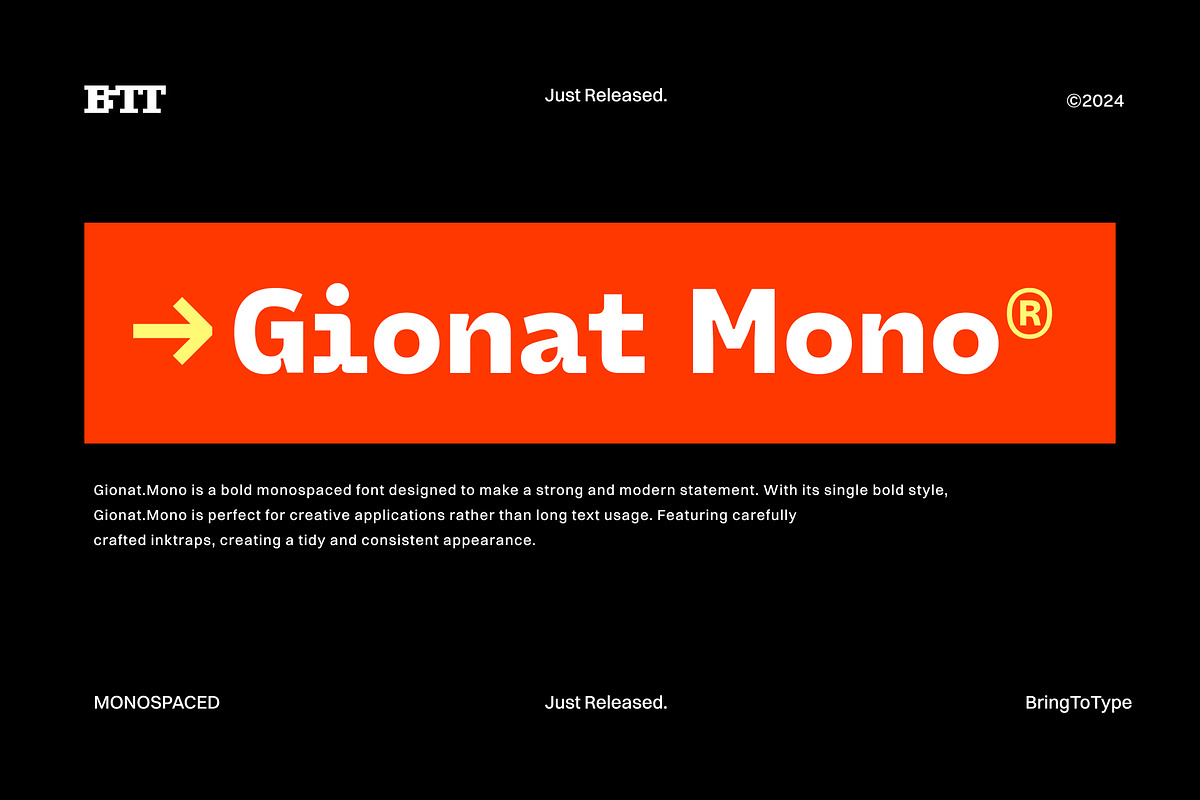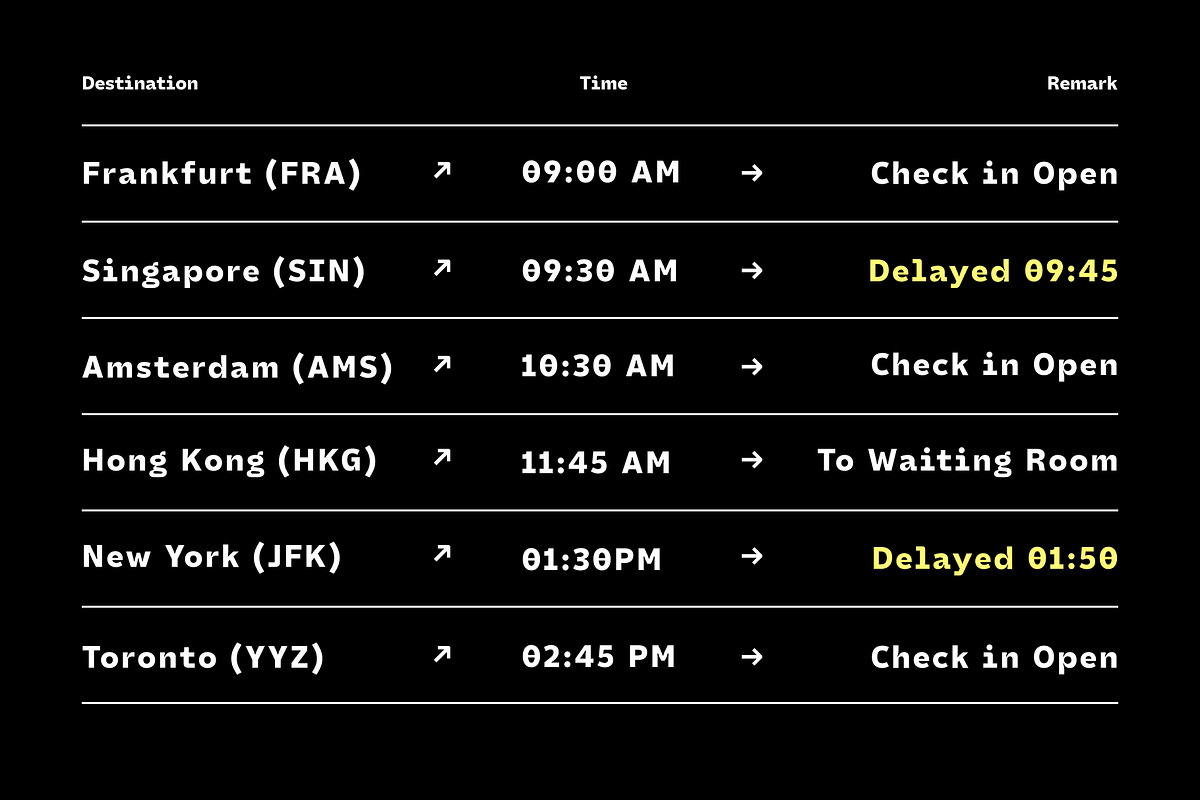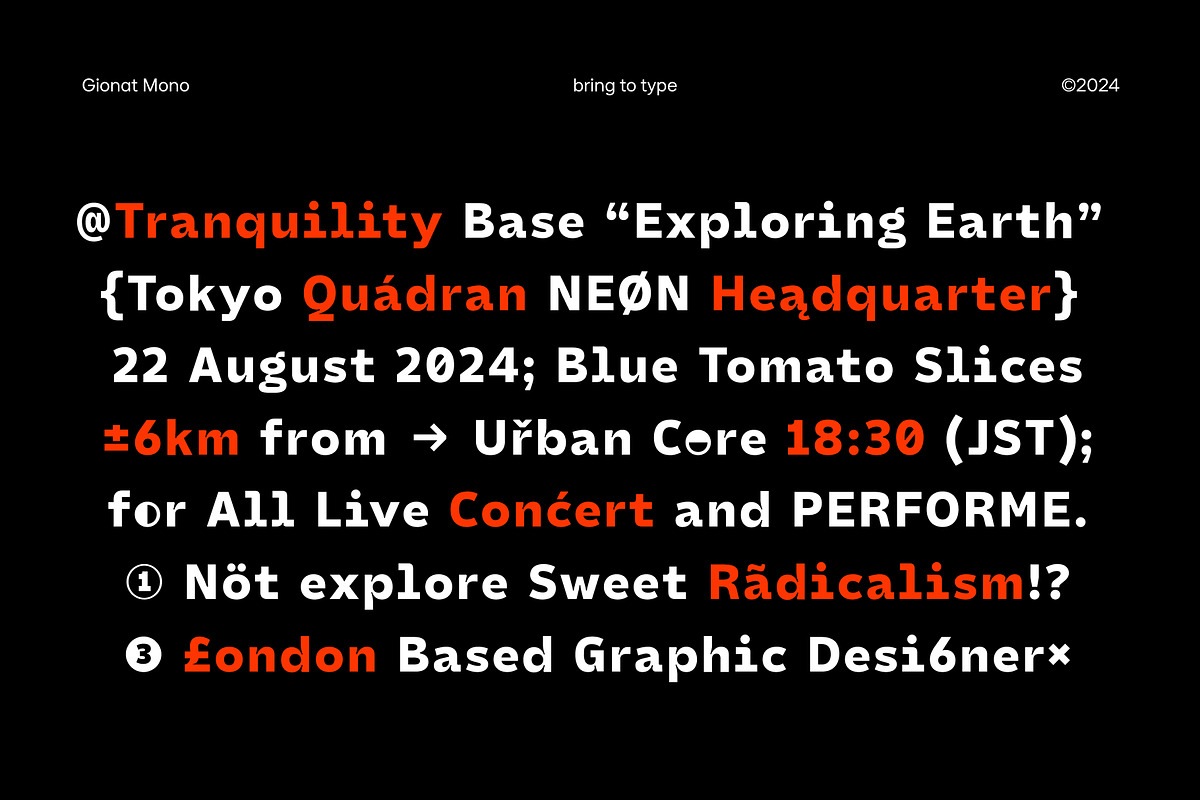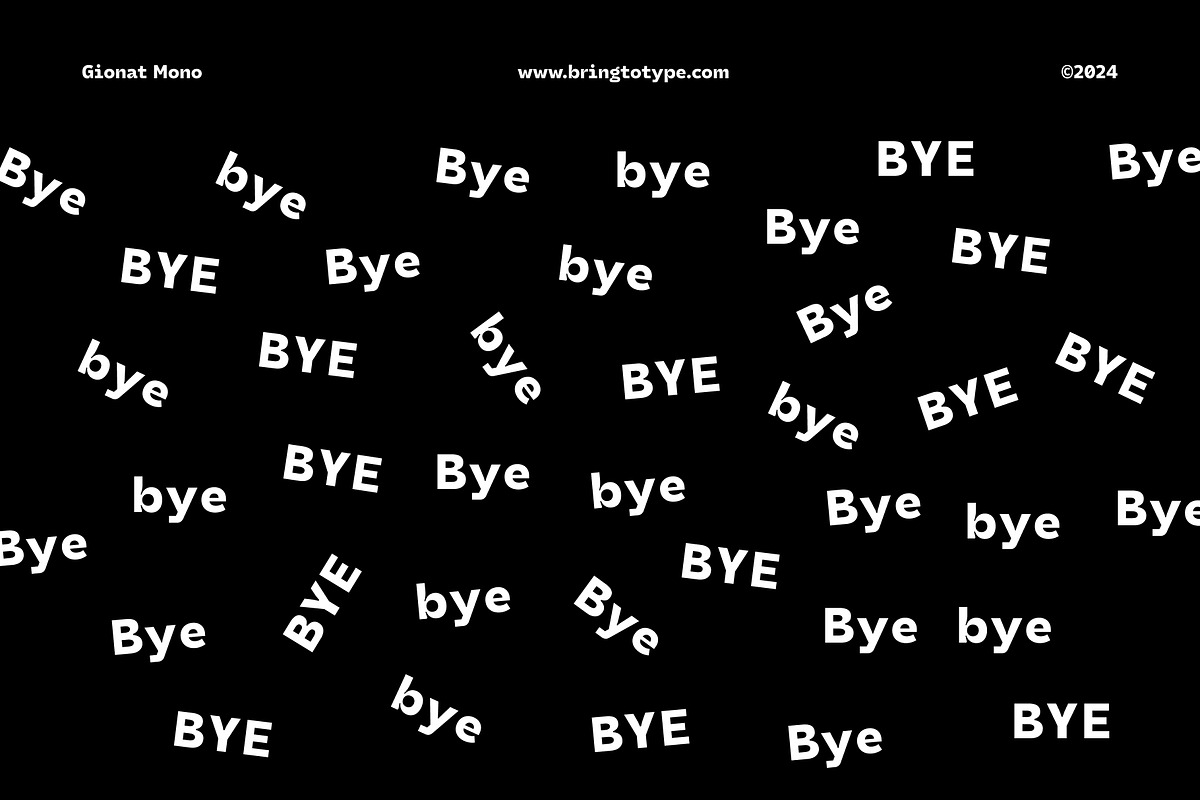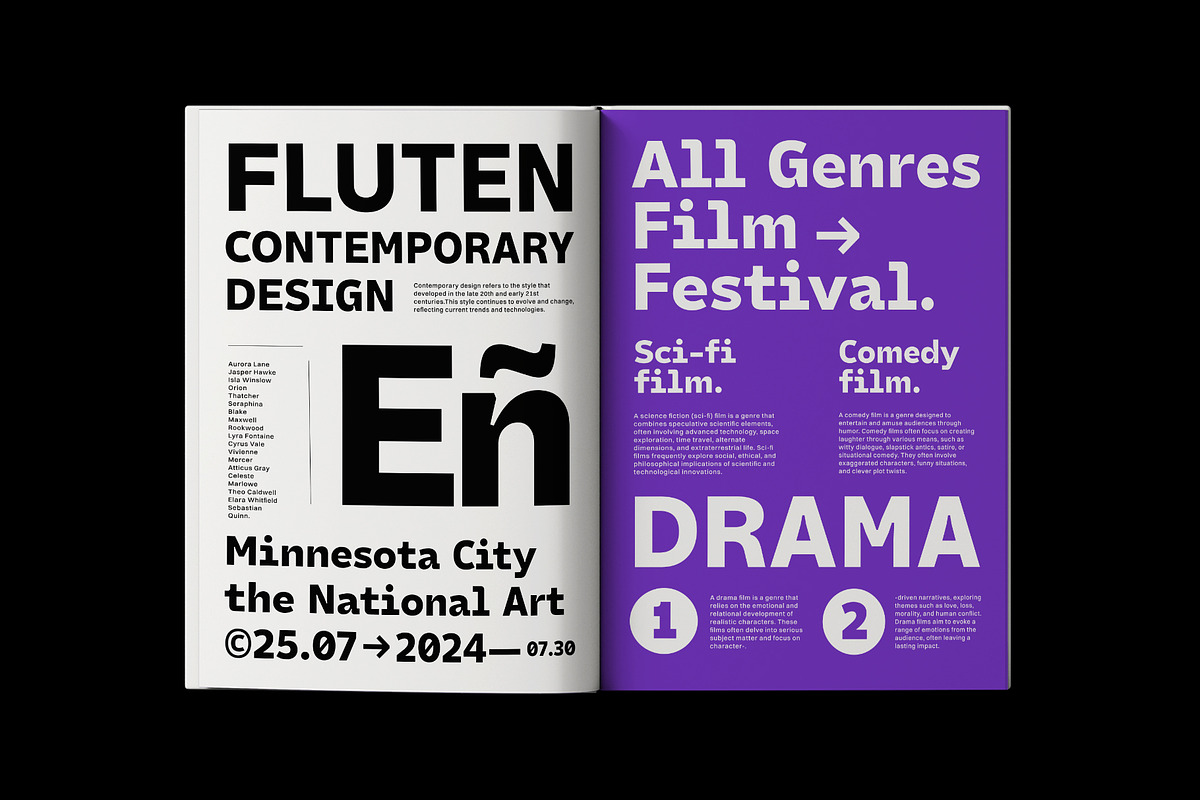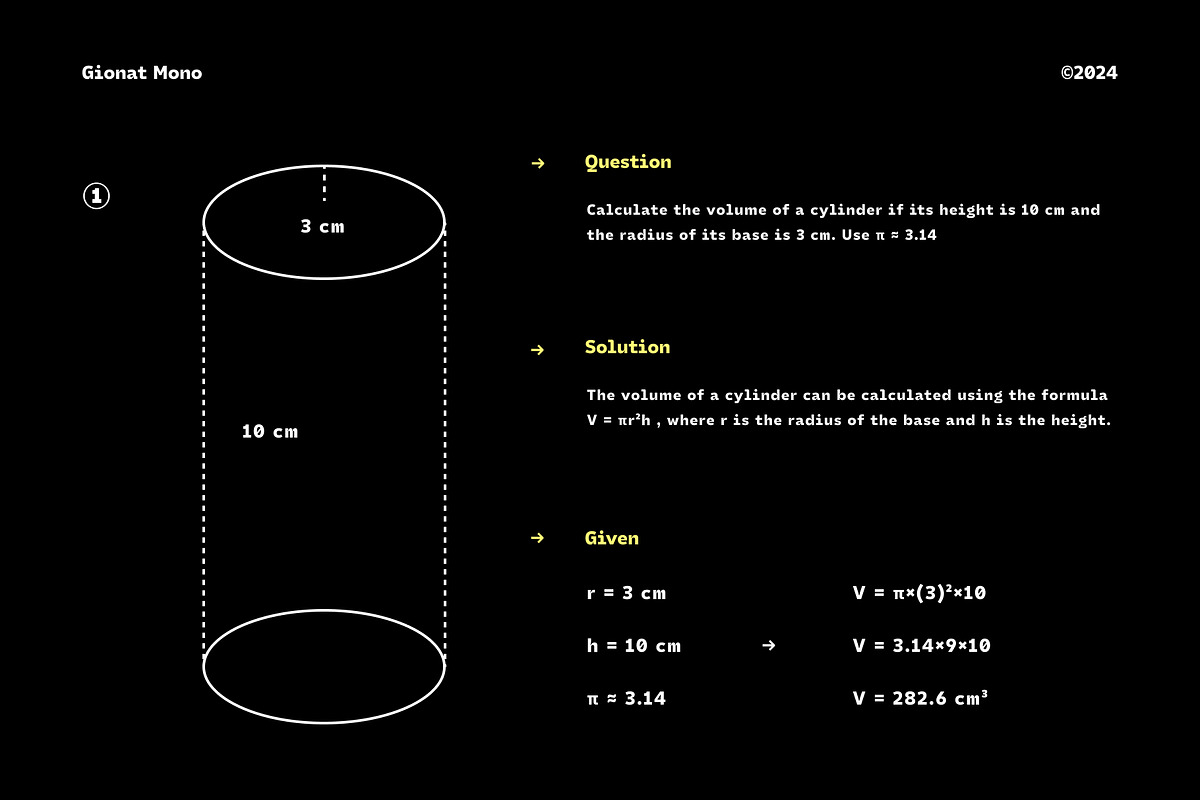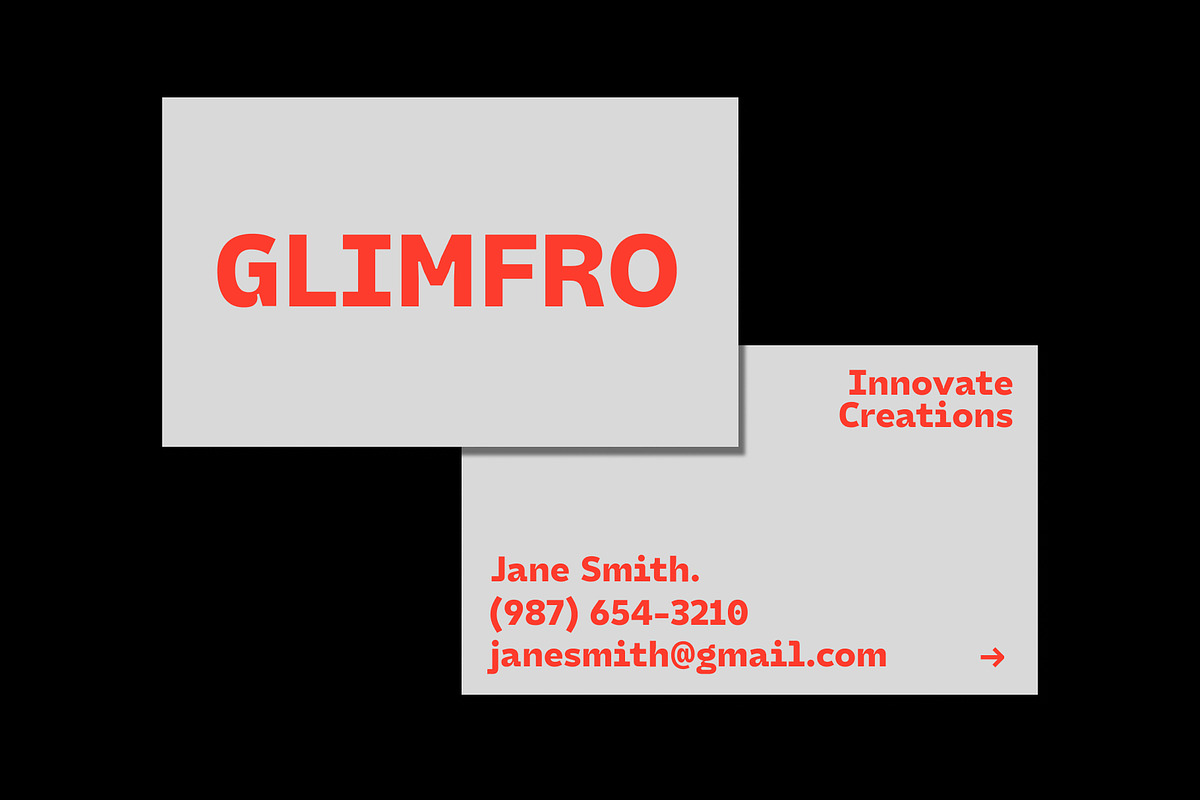
Gionat Mono
Gionat.Mono is a bold monospaced font designed to make a strong and modern statement. With its single bold style, Gionat.Mono is perfect for creative applications rather than long text usage. Featuring carefully crafted inktraps, creating a tidy and consistent appearance.
Crackiet Features:
± 440 Glyphs
Symbols & Punctuation